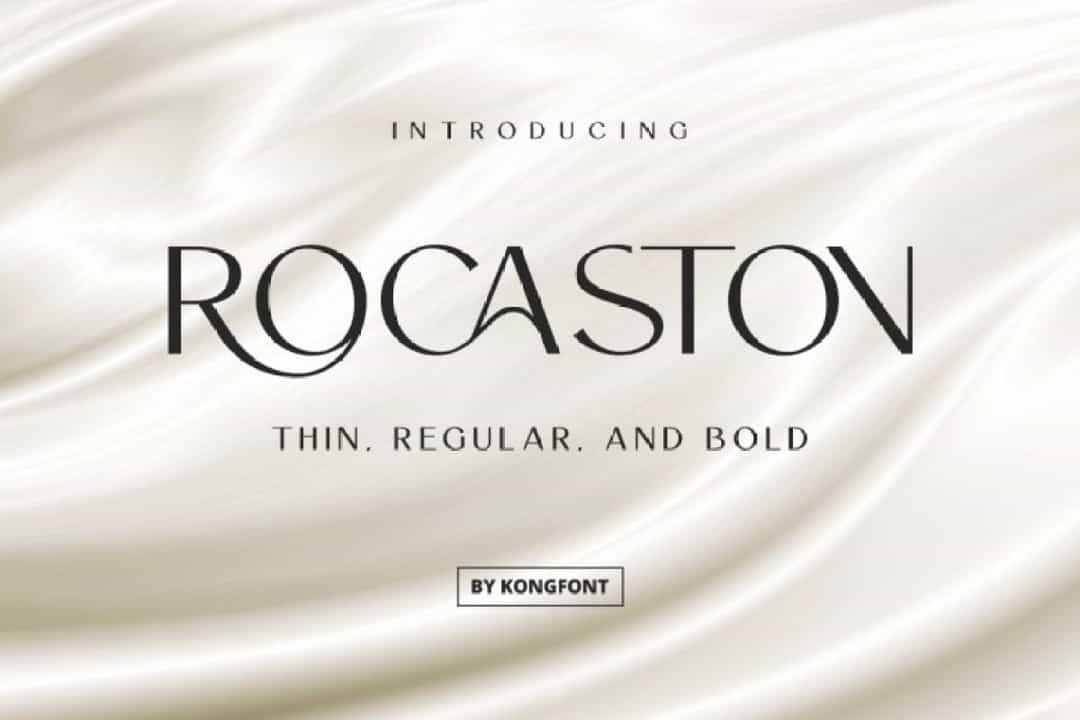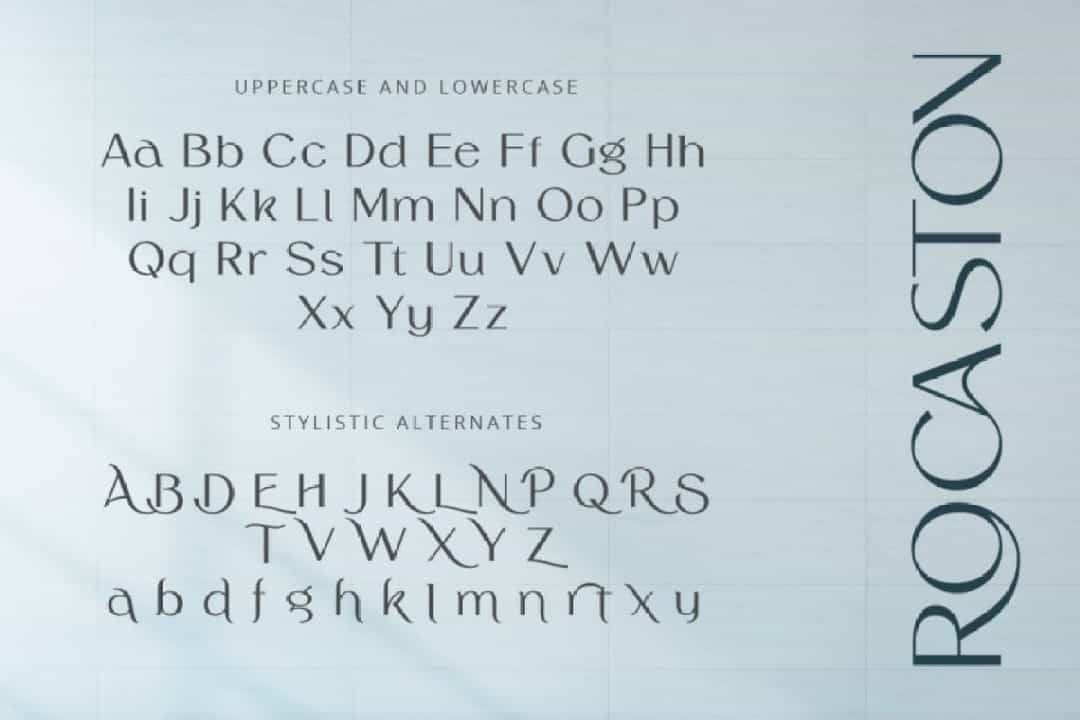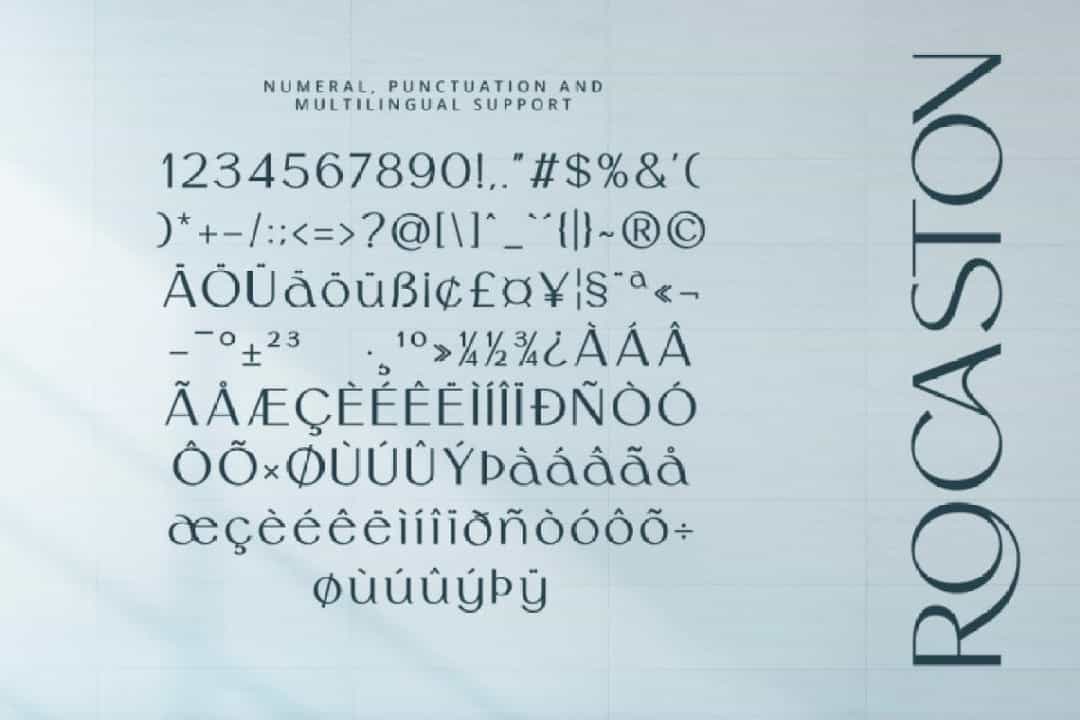
Rocaston is an eye-catching sans serif font with lowercase letters featuring underscores for added contrast and dimension. Perfect for posters, magazines film titles advertisements T-shirt designs logos quotes and much more; add this font instantly for complete designs!